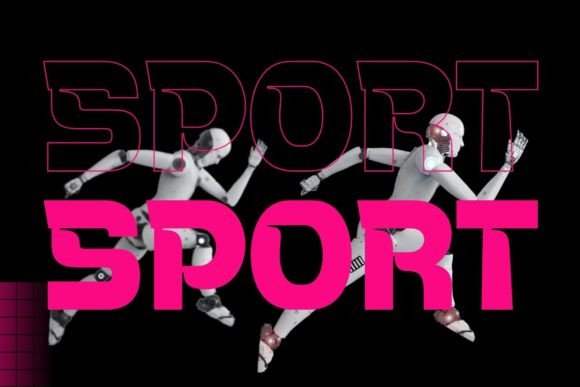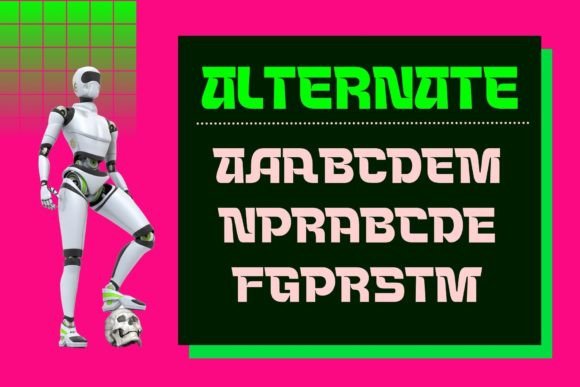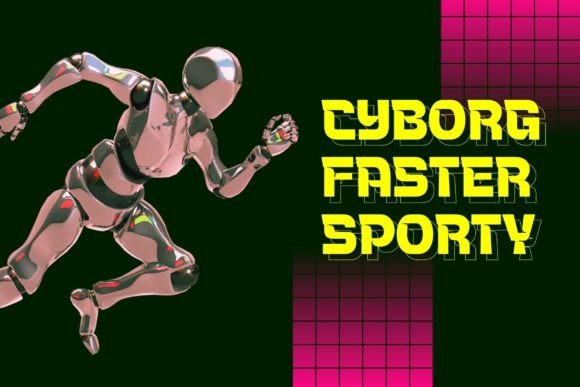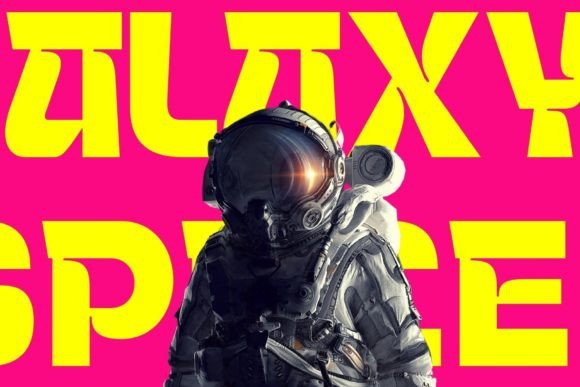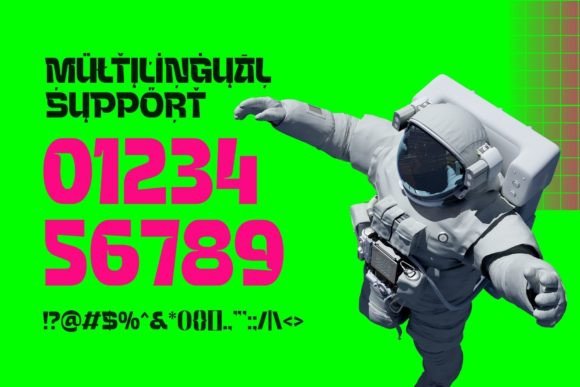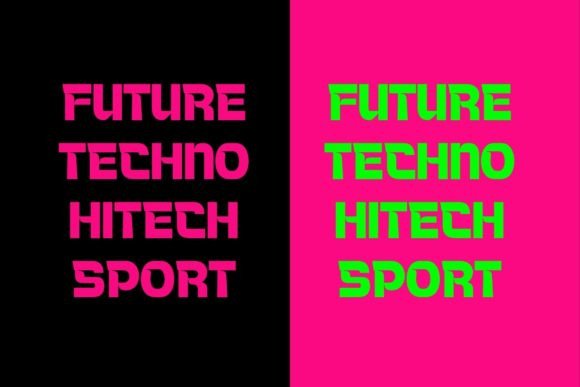
Baku Gym Font: Elevate Your Designs with a Cutting-Edge Sports Techno Font
In the world of design, fonts play a crucial role in conveying the tone and aesthetic of a project. For designers and crafters looking to add a futuristic and sleek touch to their work, the Baku Gym Font is an excellent choice. This cutting-edge sports techno font is designed to provide a modern and forward-looking visual identity, making it perfect for projects that require a high-tech vibe.
What Sets Baku Gym Font Apart
The Baku Gym Font boasts sharp lines, geometric forms, and a high-tech aesthetic that sets it apart from other fonts. Its unique design elements make it an ideal choice for designers who want to create a bold and futuristic look. Whether you’re working on a sports-related project, a tech startup, or a modern brand, this font is sure to make a statement.
Key Features of Baku Gym Font
- Sharp Lines and Geometric Forms: The font’s sharp lines and geometric forms give it a sleek and modern look that’s perfect for projects that require a high-tech aesthetic.
- High-Tech Vibe: The Baku Gym Font is designed to provide a futuristic and forward-looking visual identity, making it ideal for projects that require a modern and cutting-edge look.
Use Cases for Baku Gym Font
The Baku Gym Font is versatile and can be used in a variety of projects, including:
- Sports Branding: The font’s sports techno aesthetic makes it perfect for sports-related projects, such as team logos, jerseys, and sports equipment.
- Tech Startups: The font’s modern and futuristic look makes it an excellent choice for tech startups and companies that want to convey a sense of innovation and forward thinking.
- Modern Brands: The Baku Gym Font is also suitable for modern brands that want to create a bold and eye-catching visual identity.
Benefits of Using Baku Gym Font
By using the Baku Gym Font, designers and crafters can benefit from:
- Unique and Modern Aesthetic: The font provides a unique and modern aesthetic that sets it apart from other fonts.
- Versatility: The font can be used in a variety of projects, making it a versatile addition to any designer’s toolkit.
| Font Name | Baku Gym Font |
| Author | Sigit Dwipa |
In conclusion, the Baku Gym Font is a cutting-edge sports techno font that’s perfect for designers and crafters looking to add a futuristic and sleek aesthetic to their work. With its sharp lines, geometric forms, and high-tech vibe, this font is sure to make a statement. Its PUA encoded feature, versatility, and modern aesthetic make it an excellent choice for a wide range of projects. Whether you’re working on a sports-related project, a tech startup, or a modern brand, the Baku Gym Font is an excellent choice.